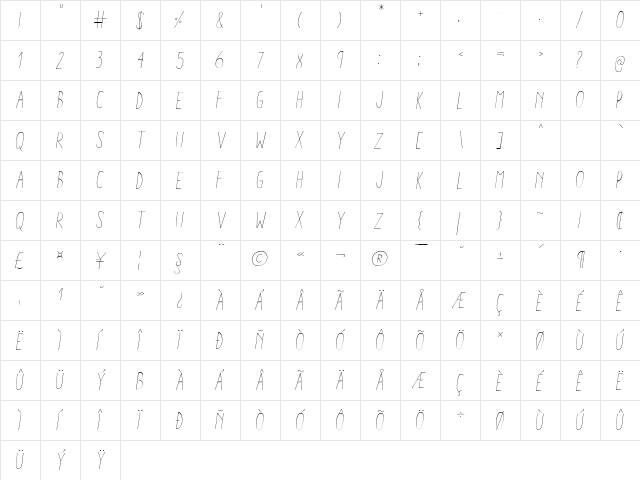
Aracne Condensed Light Italic Condensed Light Italic
Condensed Light Italic · Julia Martinez Diana, Antipixel. Julia Martinez Diana, Antipixel ·
Foundry Julia Martinez Diana, Antipixel.
DesignerJulia Martinez Diana, Antipixel
Design Context for Aracne Condensed Light Italic Typeface
Aracne Condensed Light Italic offers clean, dependable letterforms without strong stylistic allegiance, making it a practical choice for designers who need flexibility. Its italic angle brings a sense of urgency and motion to the letterforms. Its slender proportions lend an understated elegance to any composition. Its narrow stance lets it pack a punch even in space-constrained designs.
Pro Tip: Use Aracne Condensed Light Italic for emphasis, pull quotes, and subheadings where its slanted energy can add rhythm to the layout.